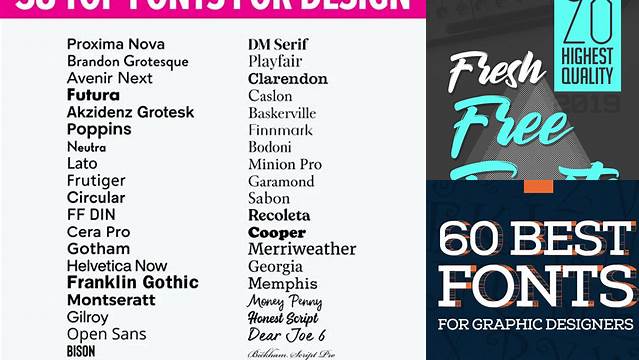
Top Fonts For Graphic Design: Ultimate Download Guide
Hey guys, if you're a graphic designer, you know that fonts are like the secret sauce to making your work pop! Finding and downloading the best fonts for graphic design is an ongoing quest, a journey that can elevate your projects from good to absolutely breathtaking. It's not just about picking something that looks nice; it's about understanding typography, legibility, and how a typeface communicates the very essence of your message. Think about it: a sleek sans-serif can convey modernity and professionalism, while a whimsical script might evoke joy and creativity. Every single font has its own personality, its own story to tell, and mastering the art of choosing the right one is a hallmark of a truly skilled designer. This guide is all about helping you navigate the vast and sometimes overwhelming world of fonts. We'll dive deep into where to find them, what to look for, and how to effectively integrate them into your design workflow. Whether you're hunting for that perfect headline font or a reliable body text, we've got you covered. Get ready to supercharge your design toolkit, because by the end of this, you'll be a font-finding wizard, ready to tackle any project with confidence and style. So, let's get into the nitty-gritty of how to genuinely enhance your design output by making smarter, more informed choices when you download best fonts for graphic design. We're talking about taking your projects from 'meh' to 'marvelous' just by nailing your typography.
Best Fonts for Graphic Design Download: Your Starter Pack
When you're looking for the best fonts for graphic design download, it's like you're building a foundational toolkit that will serve you across countless projects. Think of these as your go-to typefaces, the ones that are versatile enough to work in logos, headlines, body text, and everything in between. We're talking about fonts that are not only aesthetically pleasing but also highly legible and functional. A great starter pack often includes a robust sans-serif like Montserrat or Open Sans for a modern, clean look, which are fantastic for conveying professionalism and clarity. Then, you'll want a reliable serif font, perhaps something like Lora or Playfair Display, to add a touch of elegance or a classic feel, perfect for projects needing a sophisticated vibe. These classic options provide a beautiful contrast and can truly elevate your designs, giving them a more refined and established appearance. Beyond these, a versatile display font that can grab attention for titles or posters, like a bold, geometric option, is also crucial. The key here is balance: having a range of styles ensures you’re prepared for any design challenge that comes your way, without having to scramble for a new font every single time. It's about efficiency and effectiveness, guys. Always remember to consider the licensing terms when you download best fonts for graphic design, ensuring they fit your usage needs, whether personal or commercial. Building this initial collection strategically means you're always ready to create something amazing, making your design process smoother and more enjoyable. These aren't just pretty faces; they're workhorses that will be with you through thick and thin, project after project.
Free Fonts for Graphic Design Download: Budget-Friendly Brilliance
Who doesn't love freebies, especially when it comes to boosting your design arsenal? Searching for free fonts for graphic design download opens up a world of creativity without emptying your wallet, which is a massive win for freelancers, students, or anyone on a tight budget. There are so many incredible resources out there offering high-quality fonts that don't cost a dime, yet perform just as well as their premium counterparts in many design scenarios. Websites like Google Fonts, Font Squirrel, and DaFont are absolute goldmines for this. Google Fonts, for instance, offers an impressive collection of open-source fonts, all with licenses that typically allow for both personal and commercial use – a huge bonus! Font Squirrel curates only commercially licensed free fonts, making it super safe and convenient for professional projects. While DaFont has a vast selection, remember to double-check the licensing for each font, as many are free for personal use only but require a purchase for commercial applications. The trick to using free fonts successfully is to be discerning; not every free font is created equal, and some might lack the extensive character sets or advanced typographic features found in paid options. However, with a little digging, you can unearth some true gems that will make your designs shine. Don't be afraid to experiment and combine different free fonts to create unique and engaging typography. When you take the time to explore and download free fonts for graphic design, you empower yourself to produce stunning visuals without financial constraints, proving that top-tier design doesn't always have to come with a hefty price tag. This approach allows you to continuously refresh your design library, keeping your work fresh and exciting without breaking the bank. So, go ahead and explore those free options, guys – your next favorite font might just be a click away!
Top Graphic Design Fonts Download: The Industry Favorites
When you're aiming for that professional polish, seeking out the top graphic design fonts download options is a smart move. These are the fonts that consistently appear in professional portfolios, award-winning designs, and major branding campaigns. They're often celebrated for their incredible versatility, legibility, and the extensive range of weights and styles they offer, making them incredibly adaptable to various design needs. Think of fonts like Helvetica Neue, universally lauded for its clean, timeless appeal, or Gotham, which has become a staple for its friendly yet authoritative presence. Proxima Nova is another fan-favorite, striking a perfect balance between geometric and grotesque styles, making it highly readable and adaptable across digital and print media. These aren't just popular; they're popular because they work exceptionally well. They provide designers with robust tools to create compelling visual hierarchies and stunning typographic compositions. Investing in these top-tier fonts, even if it means a premium download, can significantly elevate the quality and perceived value of your work. They come with comprehensive character sets, often including multiple languages, and are meticulously crafted, ensuring consistent quality across all applications. When you choose to download top graphic design fonts, you're not just getting a typeface; you're gaining access to a piece of design history and a highly reliable tool that seasoned professionals trust daily. It’s about building a design arsenal that’s both high-performing and aesthetically superior, ensuring your projects always look their absolute best, regardless of the client or brief. Don't just follow trends; understand why these fonts endure, and incorporate their strength into your own creative endeavors.
Essential Fonts for Graphic Designers: Build Your Core Collection
Building your collection of essential fonts for graphic designers is fundamental, like a chef stocking their pantry with must-have spices. These are the workhorse fonts that you'll reach for again and again, the ones that are versatile, legible, and reliable across a multitude of projects. Every designer needs a solid foundation, and this often begins with a few key categories. First up, you absolutely need a versatile sans-serif; think of fonts like Lato, Roboto, or Source Sans Pro. These are clean, modern, and excellent for both headlines and body text, providing clarity and a contemporary feel. Their readability across various screen sizes and print formats makes them indispensable. Next, a classic serif font is a must for conveying elegance, tradition, or authority. Garamond, Georgia, or Libre Baskerville are fantastic choices, offering a timeless appeal perfect for sophisticated branding, editorial layouts, or even formal invitations. Furthermore, a strong display font that can command attention without being overbearing is crucial for posters, titles, and striking visual impact. Look for something unique yet readable. Finally, don't overlook a functional monospace font for coding, data representation, or a retro tech aesthetic. Consolas or Fira Code are excellent in this category. Having these essential fonts for graphic designers in your library means you’re always prepared, no matter the brief. It reduces decision fatigue and allows you to focus more on the creative aspects of your design, knowing your typography foundation is rock-solid. These fonts aren't just about looks; they're about functionality, adaptability, and helping you communicate effectively every single time. Curating this core collection is a strategic move that pays dividends in efficiency and design quality, allowing you to streamline your workflow and deliver consistently polished results.
Must-Have Fonts for Branding: Crafting Identity
When it comes to building a brand, selecting must-have fonts for branding is one of the most critical decisions you'll make, as typography plays a colossal role in shaping a company's identity and perception. These aren't just decorative elements; they are foundational pillars that communicate professionalism, personality, and trustworthiness. For strong, modern brands, sans-serifs like Montserrat, Lato, or Open Sans are often preferred due to their clean lines and excellent legibility across all mediums – from digital interfaces to print collateral. They project a contemporary and approachable image. For brands seeking a more classic, luxurious, or established feel, elegant serif fonts such as Playfair Display, Lora, or Georgia are perfect. These convey sophistication and heritage, making them ideal for high-end products or services. Some brands benefit from a strong, unique display font for their logo or primary headlines, something that instantly becomes recognizable, like a bold, geometric typeface or a custom-designed letterform. However, balance is key; a brand typically uses a primary font for headlines and a secondary font for body text, ensuring readability and consistency. The chosen fonts must be versatile enough to work across various applications – from a tiny favicon to a large billboard – and maintain their character and legibility. Consistency in font usage across all brand touchpoints is paramount for building recognition and trust. Carefully researching and selecting must-have fonts for branding means you're investing in the long-term visual language of a company, ensuring that every message it sends is coherent, impactful, and truly reflective of its core values. It’s about creating an emotional connection with the audience through the power of expertly chosen letterforms, making the brand memorable and distinct in a crowded marketplace. This strategic selection process is what truly differentiates a well-crafted brand identity from a generic one.
Modern Graphic Design Fonts Free Download: Contemporary Edge on a Budget
Looking for that sleek, contemporary vibe without spending a fortune? Searching for modern graphic design fonts free download options is your secret weapon, allowing you to infuse your projects with a fresh, up-to-date aesthetic without breaking the bank. The world of modern typography often emphasizes clean lines, geometric shapes, and a minimalist approach, focusing on clarity and functionality. Many talented type designers release their work as free fonts, providing incredible resources for designers. Think about popular choices like Poppins, a beautiful geometric sans-serif that's incredibly versatile for both headlines and body text, available on Google Fonts. Or perhaps Rubik, another excellent option known for its slightly rounded edges, giving it a friendly yet modern feel. Another gem is Fira Sans, designed for readability on screens but equally stunning in print. These fonts embody the modern design ethos – simplicity, efficiency, and a touch of understated elegance. When selecting from modern graphic design fonts free download selections, pay attention to the weights and styles available; a font family with multiple weights (light, regular, bold, etc.) offers far more flexibility in your designs, allowing for clear visual hierarchies. Also, check for extended character sets to ensure multilingual support if your projects require it. While they are free, these fonts often come with the same meticulous craftsmanship found in premium options, making them invaluable assets. Integrating them thoughtfully into your work can instantly elevate its modernity, making your designs look professional, current, and incredibly polished, proving that you don't always need a massive budget to achieve a cutting-edge aesthetic. Embrace the power of free resources to continually refresh and update your design library, keeping your creative output relevant and impactful in today's fast-paced visual landscape.
Professional Fonts for Print Design: The Tangible Impact
When your design is destined for the tangible world, selecting professional fonts for print design requires a different level of scrutiny compared to digital applications. Print has unique demands; issues like ink bleed, paper texture, and resolution all play a role in how a font will appear. Therefore, legibility and crispness become paramount. Serif fonts often excel in print for body text, as their small